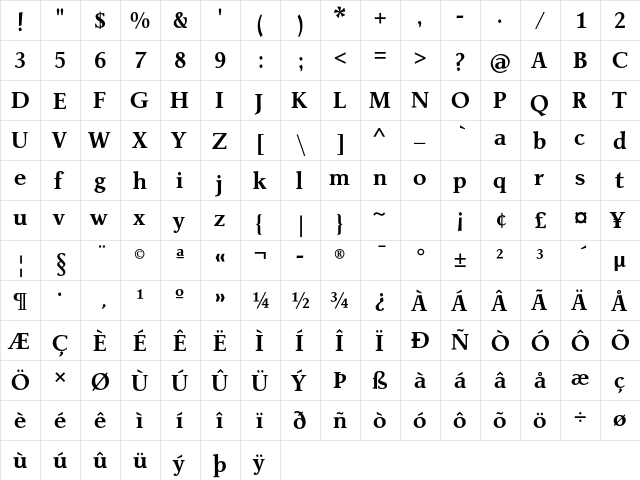
Jante Antiqua Std Bold
| Designer | Poul Sn |
Design Context for Jante Antiqua Std Typeface
Jante Antiqua Std is a composed and adaptable typeface that performs quietly and consistently across a wide range of design contexts. The heavy weight commands attention and anchors typographic hierarchies.